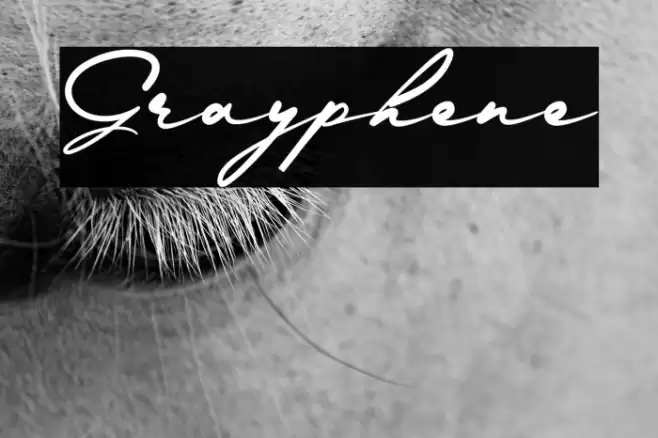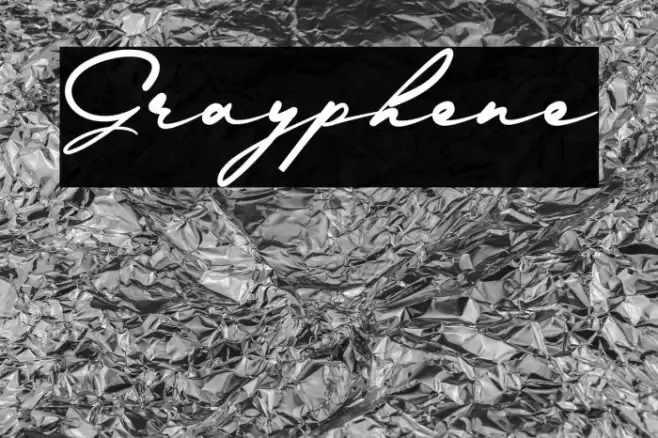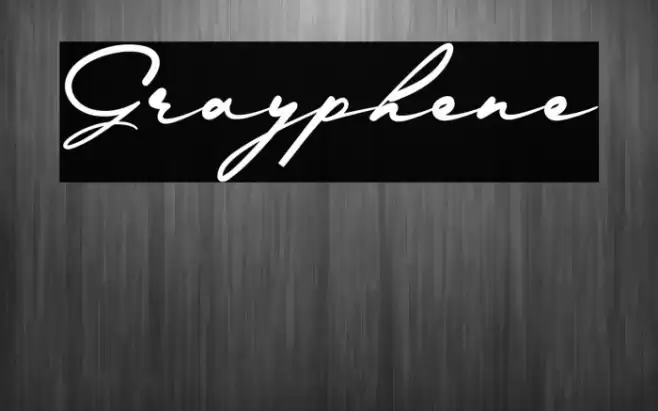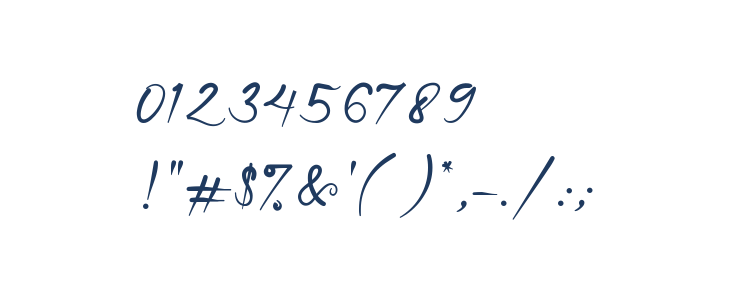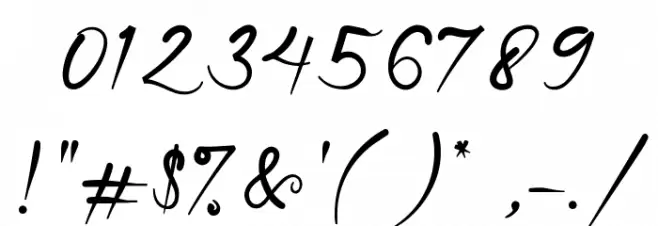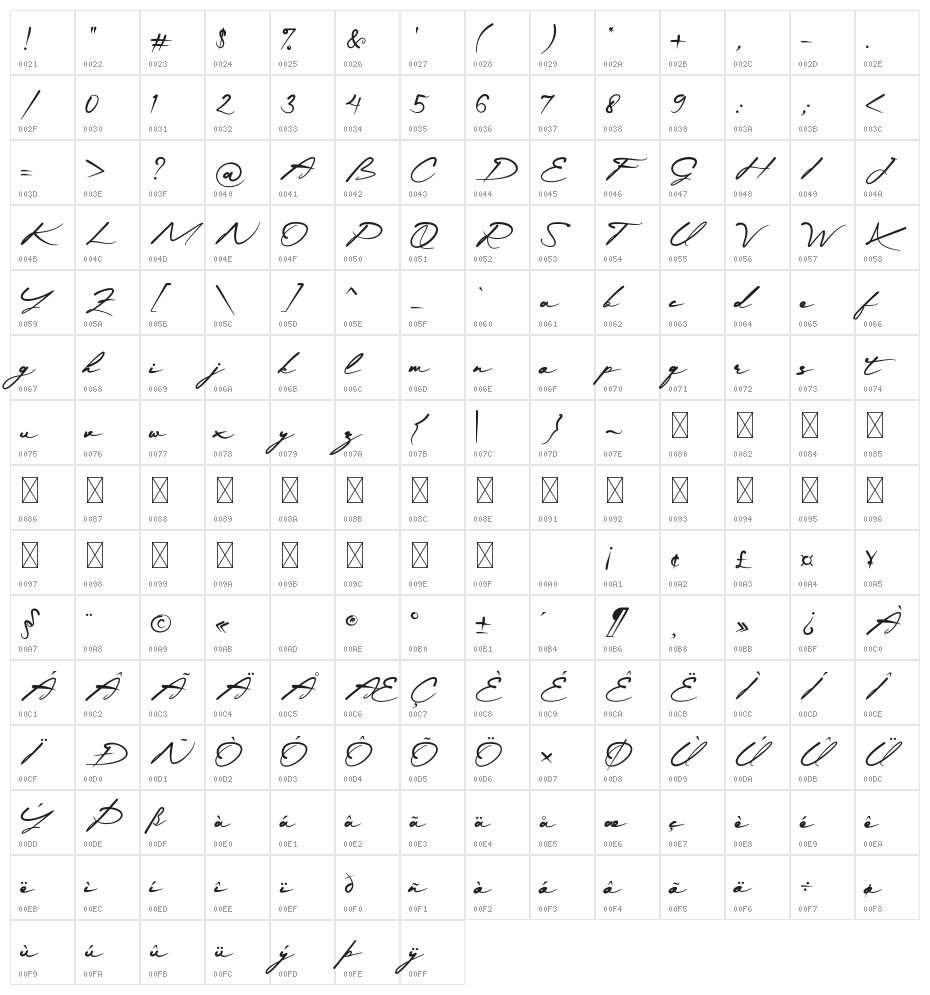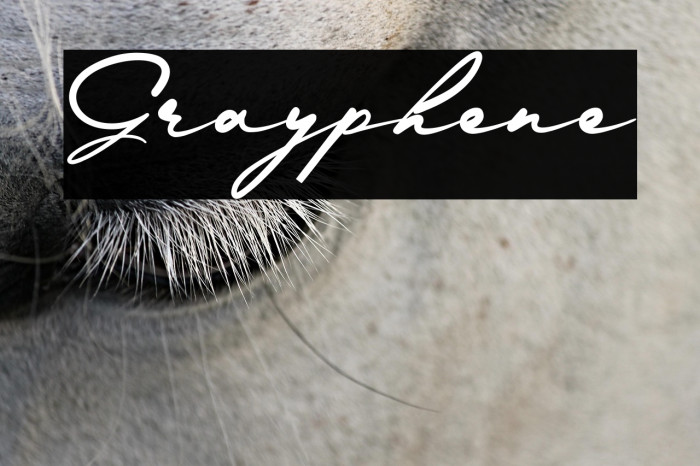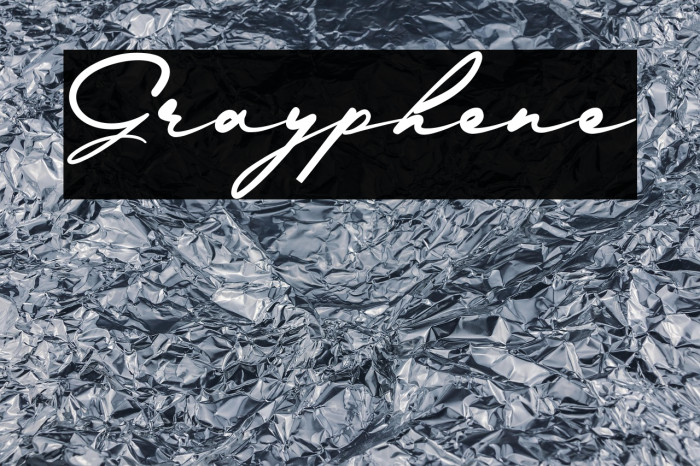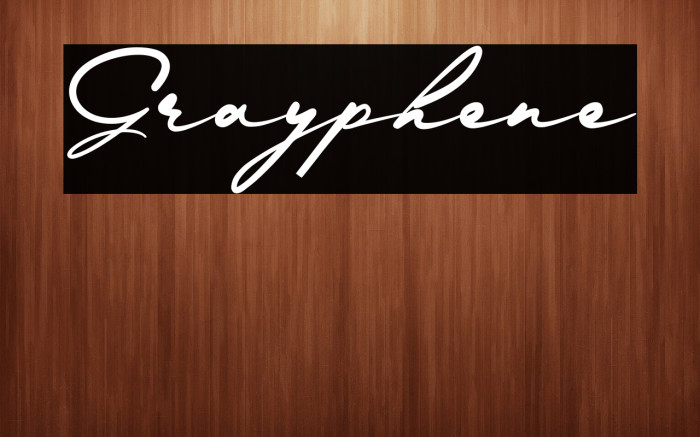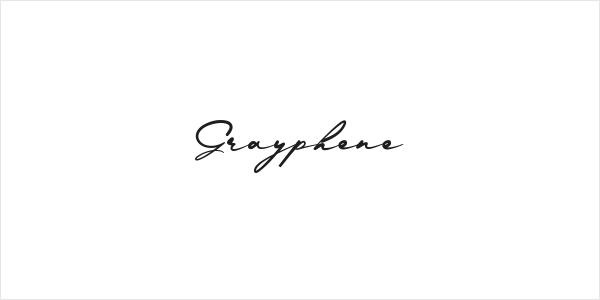
Grayphene Font
Grayphene Description
This elegant script font features a flowing, cursive style with smooth, connected strokes that mimic the fluidity of handwriting. The uppercase letters are slightly more elaborate, with graceful loops and flourishes, while the lowercase letters maintain a consistent, harmonious rhythm. The numerals are stylishly curved, complementing the overall aesthetic. Special characters are thoughtfully designed to match the script's elegance, making it suitable for a variety of creative applications. The font's refined appearance is perfect for adding a touch of sophistication and personal flair to any project.
A flowing, cursive script font with elegant, connected strokes from Regular fonts.
- Proposed Projects: Ideal for wedding invitations, greeting cards, logos, and branding materials that require a personal, elegant touch.
- Overall Style: Elegant, Decorative
- Use Case: Logos, Invitations, Greeting Cards